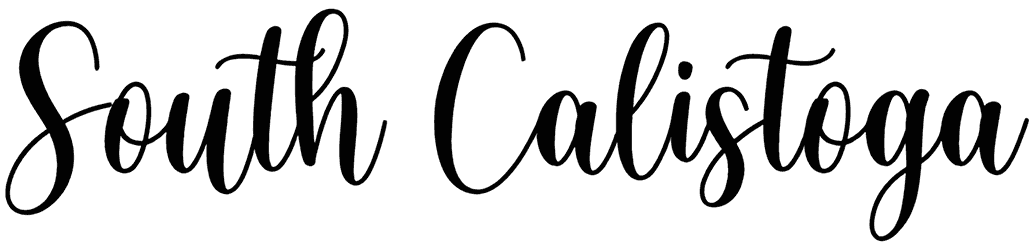
South Calistoga Font
Whether used on wedding invitations, restaurant menus, or digital jets, South Calistoga can elevate any text and give it an air of sophistication and elegance. This calligraphy font can captivate the audience and inspire us to portray our creativity amazingly. So if you want to decorate even the most mundane words with a beautiful dress, take help from this script font.